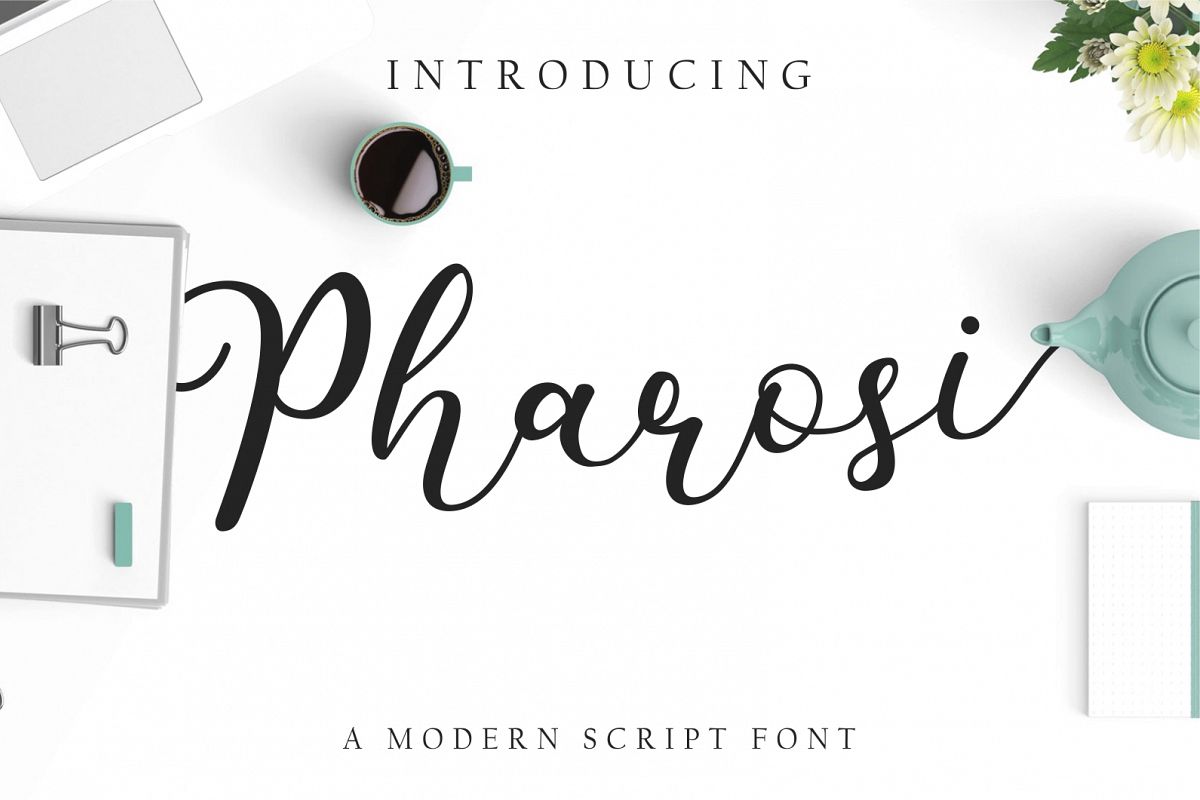
Pharosi Font
We introduce our new product called Pharosi Font.
The Pharosi Font is a modern calligraphy font.
Pharosi font was built with OpenType features and includes beginning and ending swashes, numbers, punctuation, alternates, and ligatures.
Pharosi Font is great for design projects, including logos & branding, wedding designs, social media posts, advertisements & product designs.
Mix and match the alternate characters to add an attractive message to your design.